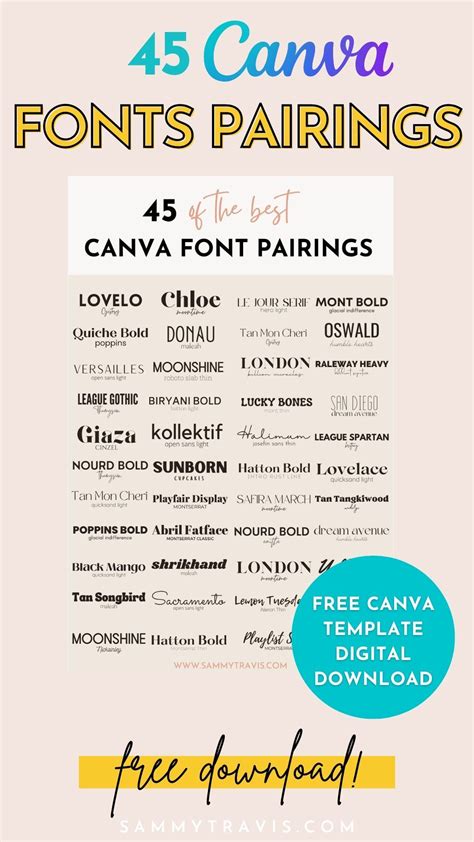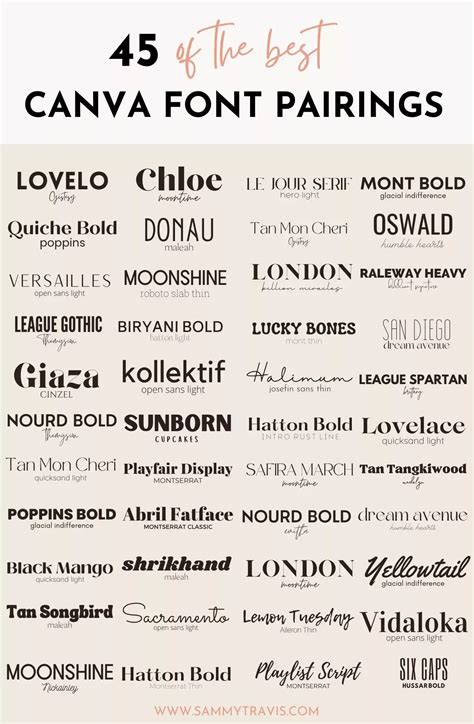
Unlock Canva Font Hacks: Pro Tips & Tricks
Readers, have you ever been stuck staring at a blank Canva design, feeling like your font choices are just not cutting it? You're not alone! Finding the perfect font can be a game-changer for your designs, transforming them from ordinary to extraordinary. But with so many options available, it's easy to get overwhelmed. Fear not, because we've got you covered with Canva font hacks that will elevate your designs and take your creativity to the next level.
We've spent countless hours analyzing the vast world of Canva fonts, experimenting with different combinations, and uncovering the secrets to creating captivating designs. We're here to share our knowledge and empowering you to unlock the full potential of Canva's font library.
Understanding the Power of Fonts
The Importance of Font Selection
Choosing the right font is like picking the perfect outfit - it can make or break your design. Fonts convey mood, personality, and message, influencing how viewers perceive your work. A bold, sans-serif font can exude confidence, while a delicate script font whispers sophistication. Don't underestimate the power of font selection!
Font Pairing: Creating Visual Harmony
Just as you wouldn't wear clashing patterns, you need to carefully pair your fonts to create visual harmony. Canva offers a wide range of font categories, from playful scripts to elegant serifs and modern sans-serifs. The key is to choose fonts that complement each other, creating a cohesive and visually appealing design.
Font Hierarchy: Guiding the Eye
Font hierarchy is like a roadmap for your viewers' eyes. By using different font sizes, weights, and styles, you can guide their attention to the most important elements of your design. This ensures that your message is communicated effectively and helps your design flow seamlessly.
Mastering Canva's Font Library
Exploring the Basics: Font Categories
Canva's font library is organized into categories, making it easy to browse and find what you're looking for. You'll find categories like Serif, Sans Serif, Script, Handwriting, and Display fonts. Each category offers a distinct style and personality, allowing you to choose fonts that align with your design goals.
Discovering Hidden Gems: Canva Pro's Font Powerhouse
Canva Pro unlocks a treasure trove of premium fonts, expanding your design possibilities exponentially. With Canva Pro, you gain access to thousands of exclusive fonts, from renowned designers and studios. This opens up a world of unique and eye-catching typography options for your designs.
Using Font Combinations Effectively
The art of font pairing is a skill that takes practice, but with a few key tips, you can create stunning combinations. Consider the overall tone of your design and choose fonts that complement that mood. For example, a playful script font paired with a bold sans-serif font can create a fun and energetic design. Experiment with different combinations and see what works best for you.
Advanced Canva Font Hacks
Unleashing the Power of Typography
Typography is more than just choosing pretty letters. It's about creating visual interest, conveying emotion, and emphasizing key elements of your design. Understanding basic typographic principles can help you create more engaging and impactful designs.
Mastering Font Weights and Styles
Font weights and styles can add depth and dimension to your designs. Experiment with different weights, such as bold, regular, light, or thin, to create contrast and hierarchy. Using italics can add a touch of elegance or informality, depending on the context.
Using Font Color and Spacing Effectively
The color of your font can have a profound impact on how it's perceived. Choose colors that complement the rest of your design and consider using contrasting colors to highlight important elements. Font spacing, or kerning, can also affect the readability and flow of your text. Experiment with different spacing adjustments to find what works best for your design.
Common Canva Font FAQs
What are the best Canva fonts for branding?
The "best" fonts for branding depend on your specific brand identity. Consider your target audience, brand values, and overall aesthetic. For a modern and clean brand, sans-serif fonts like Montserrat, Arial, or Open Sans are popular choices. If you're aiming for a more elegant and timeless feel, consider serif fonts like Garamond, Times New Roman, or Georgia.
How can I create a consistent font style across my Canva designs?
Creating a consistent font style across your Canva designs is essential for branding consistency. Choose a primary font and a secondary font that complement each other. Use these fonts consistently across your designs, whether it's for social media posts, presentations, or website graphics. Canva's brand kit feature makes it easy to manage and apply your brand fonts across all your designs.